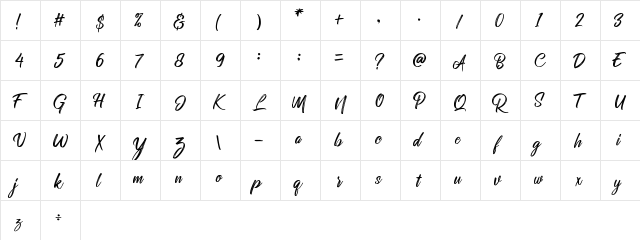
Rollete Qaku Regular
Design Context for Rollete Qaku Typeface
Rollete Qaku is a composed and adaptable typeface that performs quietly and consistently across a wide range of design contexts.